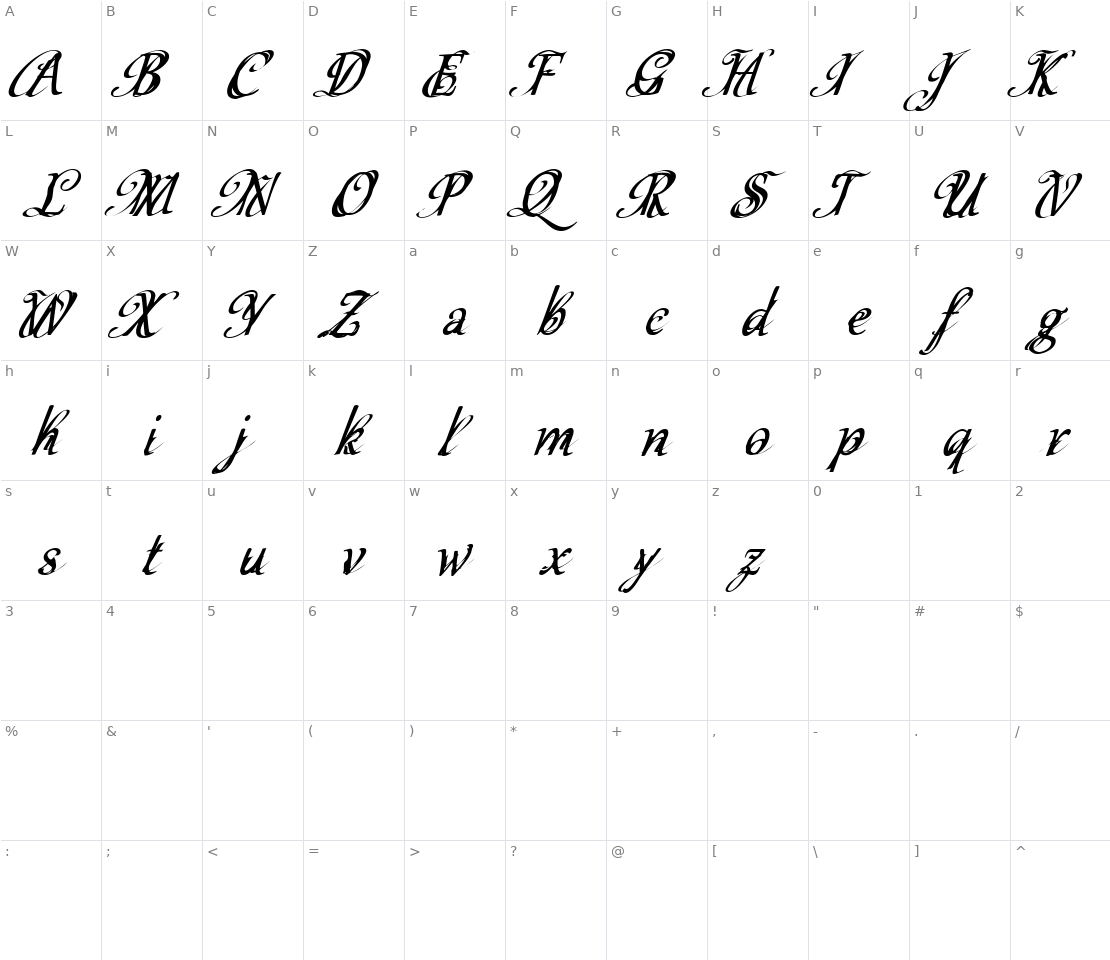
CF Schizophrenia
CF Schizophrenia is an ornate calligraphic script from Cloutierfontes with sweeping, highly decorative letterforms that carry the flourish and formality of traditional copperplate writing. Despite the irreverent name, the design is genuinely elegant, with flowing italic strokes and elaborate swashes that feel right at home on wedding invitations, formal event materials, and luxury branding. It's a headline-only face where the intricate detail needs room to breathe.